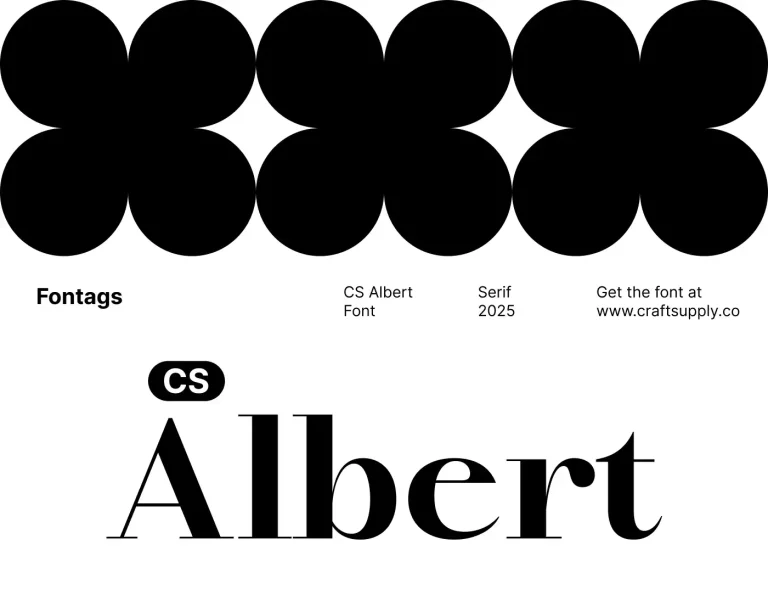
CS Albert
CS Albert – Classic Font is a refined serif typeface that embodies the essence of Didone style, characterized by its high contrast between thick and thin strokes. This design choice imparts a distinctively elegant and classic appearance, making it an excellent choice…
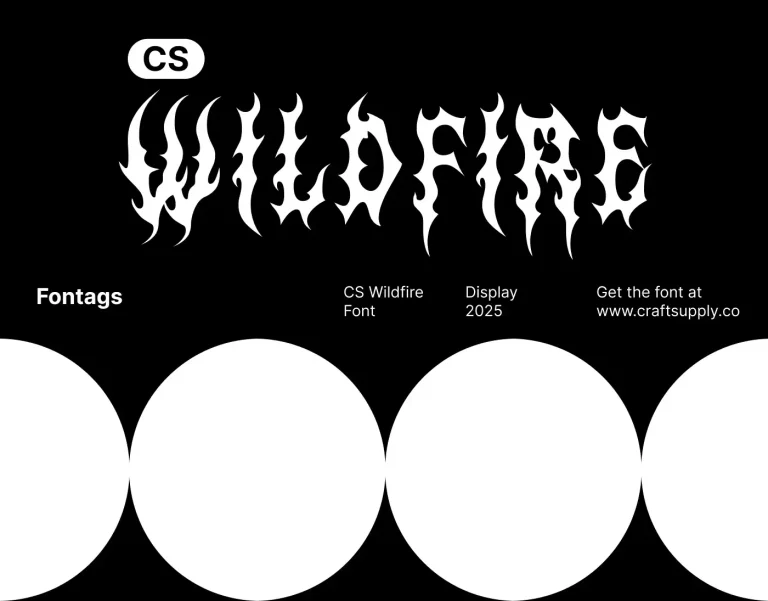
CS Wildfire
CS Wildfire is a Black Metal display font with a rough texture and chaotic, jagged letterforms. Its distorted, abstract structure mimics the raw energy of extreme metal aesthetics, evoking an uncontrolled and rebellious presence. The font’s sharp edges and twisted strokes resemble…
CS Wicked
CS Wicked is a display sans-serif font that exudes strength and durability through its bold, industrial style. Characterized by strong lines and sharp angles, this font commands attention with its solid and authoritative appearance. The bold design not only enhances visibility but also…
CS Whistle
CS Whistle is a Black Metal display font designed to embody the chaotic and extreme energy of underground metal culture. With jagged edges, sharp spikes, and distorted strokes, this font exudes raw aggression and darkness, making it perfect for designs that demand…
CS Whale
CS Whale is a classic gothic uncial display font that seamlessly merges the intricacies of medieval writing styles with a touch of artistic elegance. This font showcases unique capital letters characterized by their graceful curves and robust lines, all adorned with intricate…
CS Waylen
CS Waylen is a bold blackletter display font that embodies striking and dramatic characteristics, making it a standout choice for any design project. Its strong lines and sharp angles create an imposing sense of power and boldness, reflecting the artistry of medieval…
CS Watson
CS Watson is a striking sans-serif font that perfectly captures the essence of Art Deco elegance. Its geometric design features clean lines and bold shapes that blend vintage charm with modern sophistication, making it a versatile choice for a variety of high-end…
CS Verity
CS Verity is a distinctive display serif font that brings a fresh twist to Gothic typography. Characterized by its unique design, this font features letter ends shaped like tendrils, with smooth curves that create a coiling or intertwining effect. This Gothic-themed style merges…
CS Weird
CS Weird is an experimental display font that embraces unconventional and funky designs. Its unusual shapes and quirky aesthetics set it apart, adding a distinctive flair to any creative project. With its bold and unexpected design elements, CS Weird stands out, making…
CS Homer
CS Homer is a display cs font that stands out with its reverse contrast design, where the traditional weight distribution of thick and thin strokes is intriguingly inverted. This distinctive feature evokes typographic aesthetics from past eras, giving the font a strong…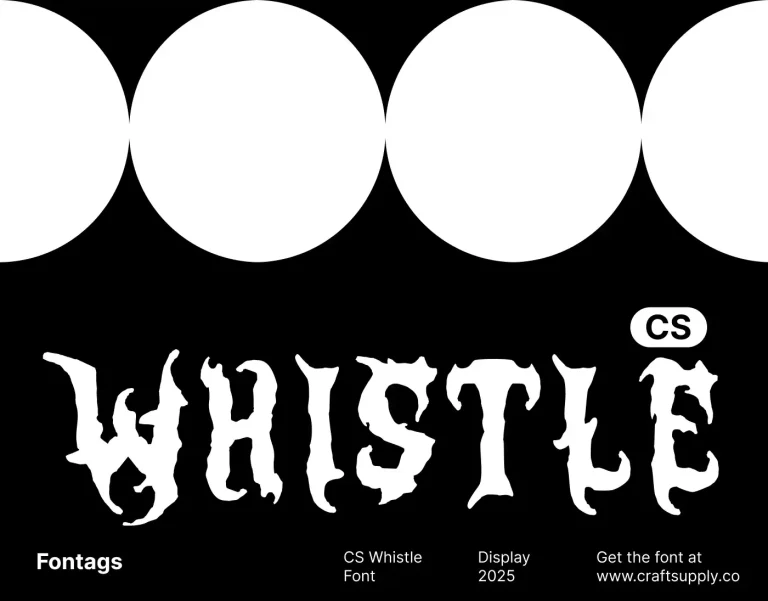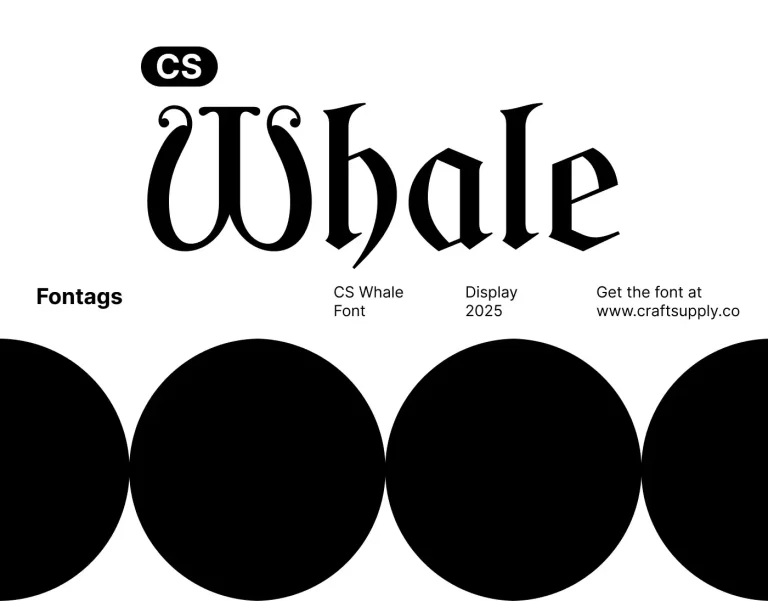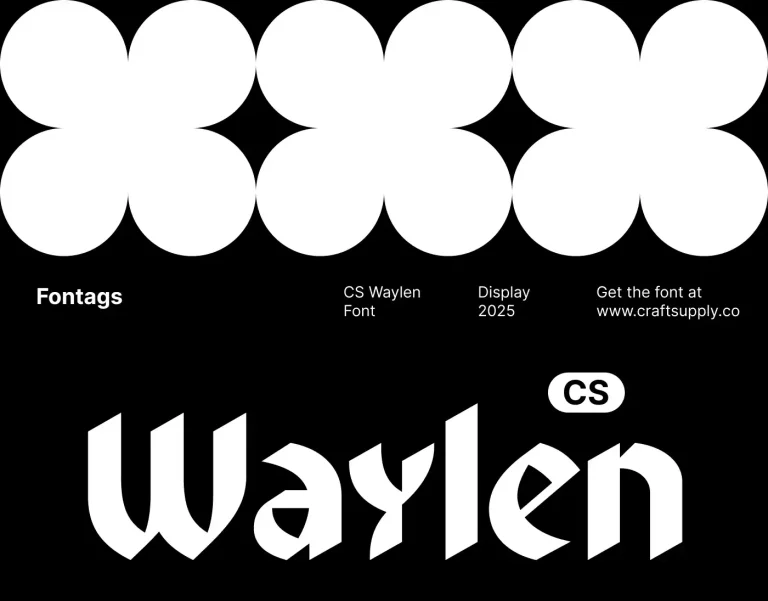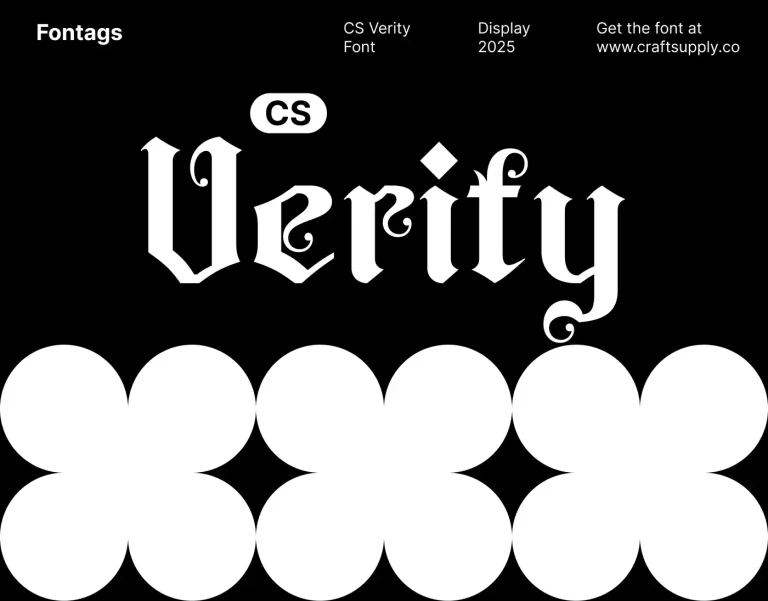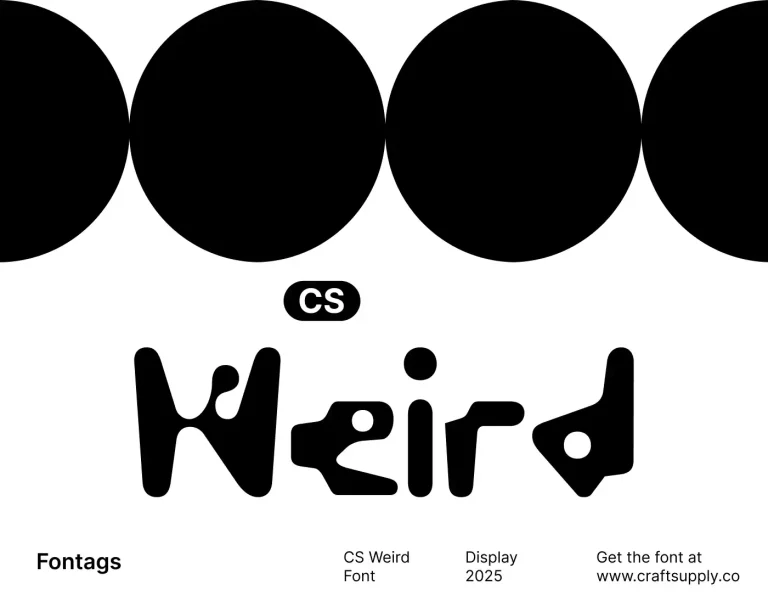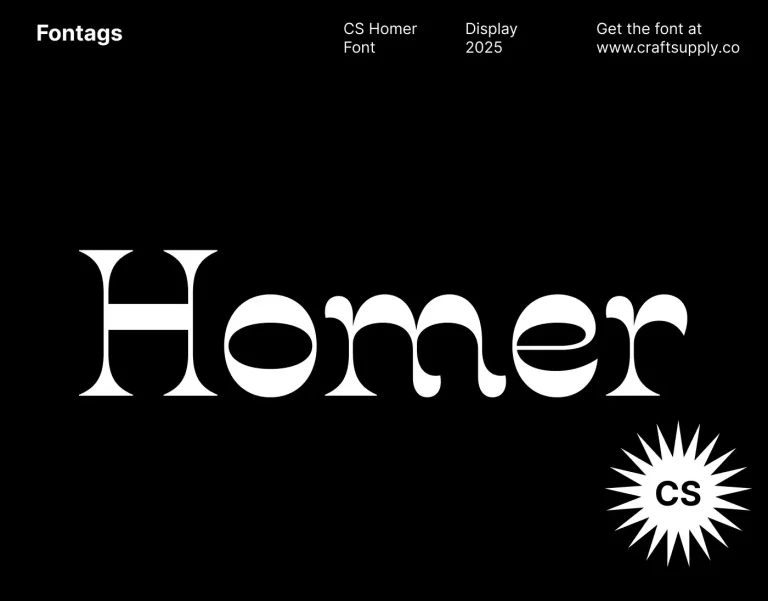